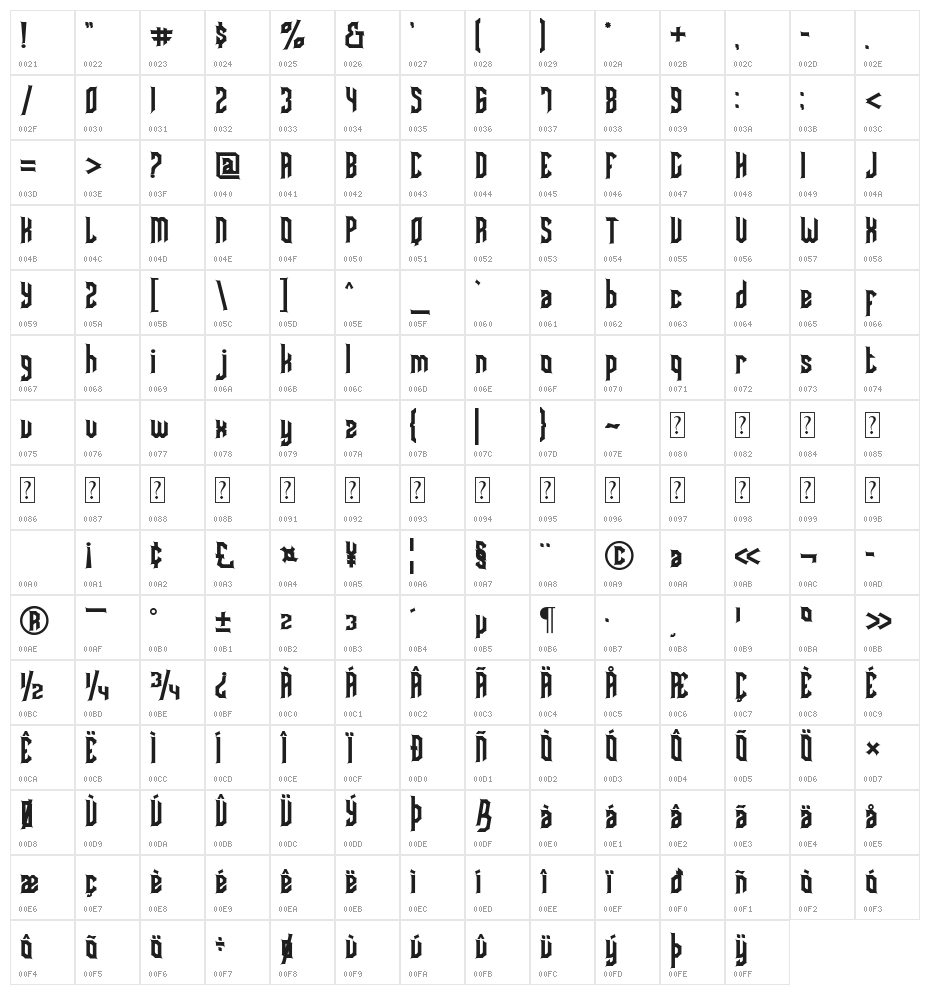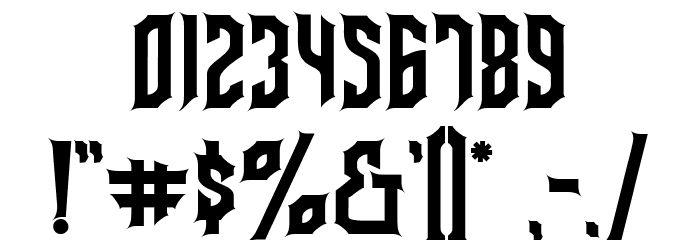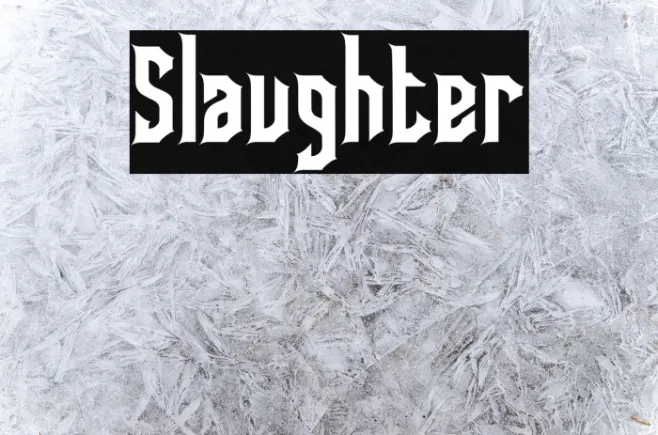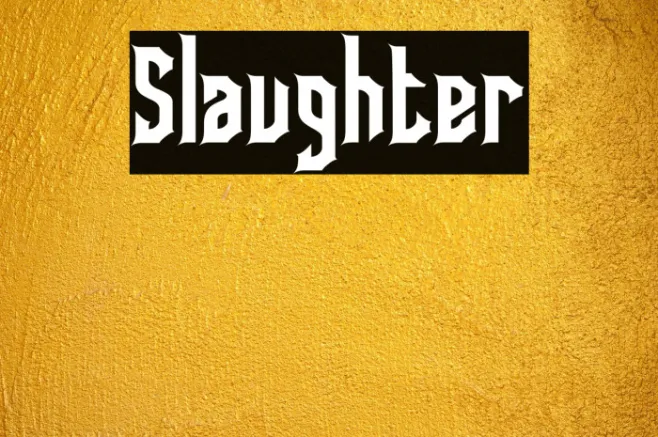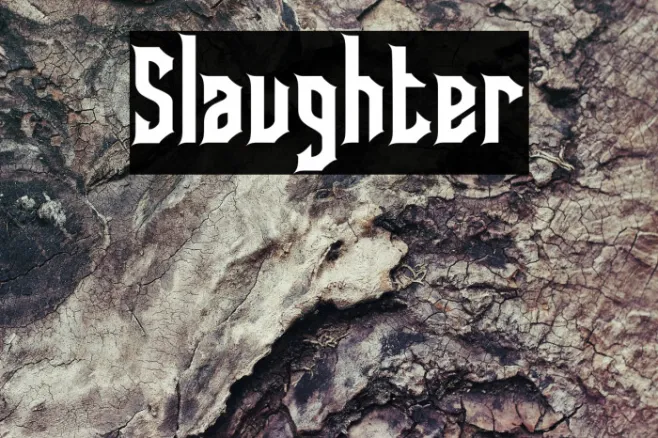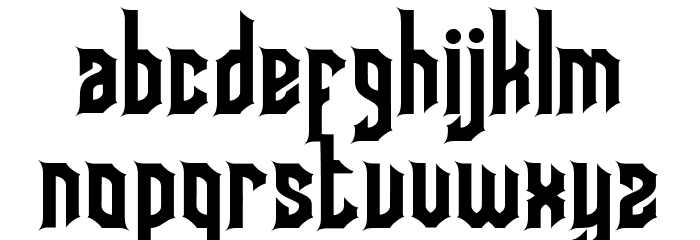
Slaughter Font
Slaughter Description
This font features a bold and aggressive design, characterized by sharp, angular edges and a distinct Gothic influence. The uppercase and lowercase letters maintain a consistent style, with exaggerated serifs and a heavy weight that commands attention. The numerals and special characters are equally bold, ensuring a cohesive look across all text elements. The font's dramatic appearance makes it ideal for projects that require a strong visual impact.
| Proposed Projects | Ideal for horror-themed designs, album covers, posters, and branding that requires a striking and edgy aesthetic. |